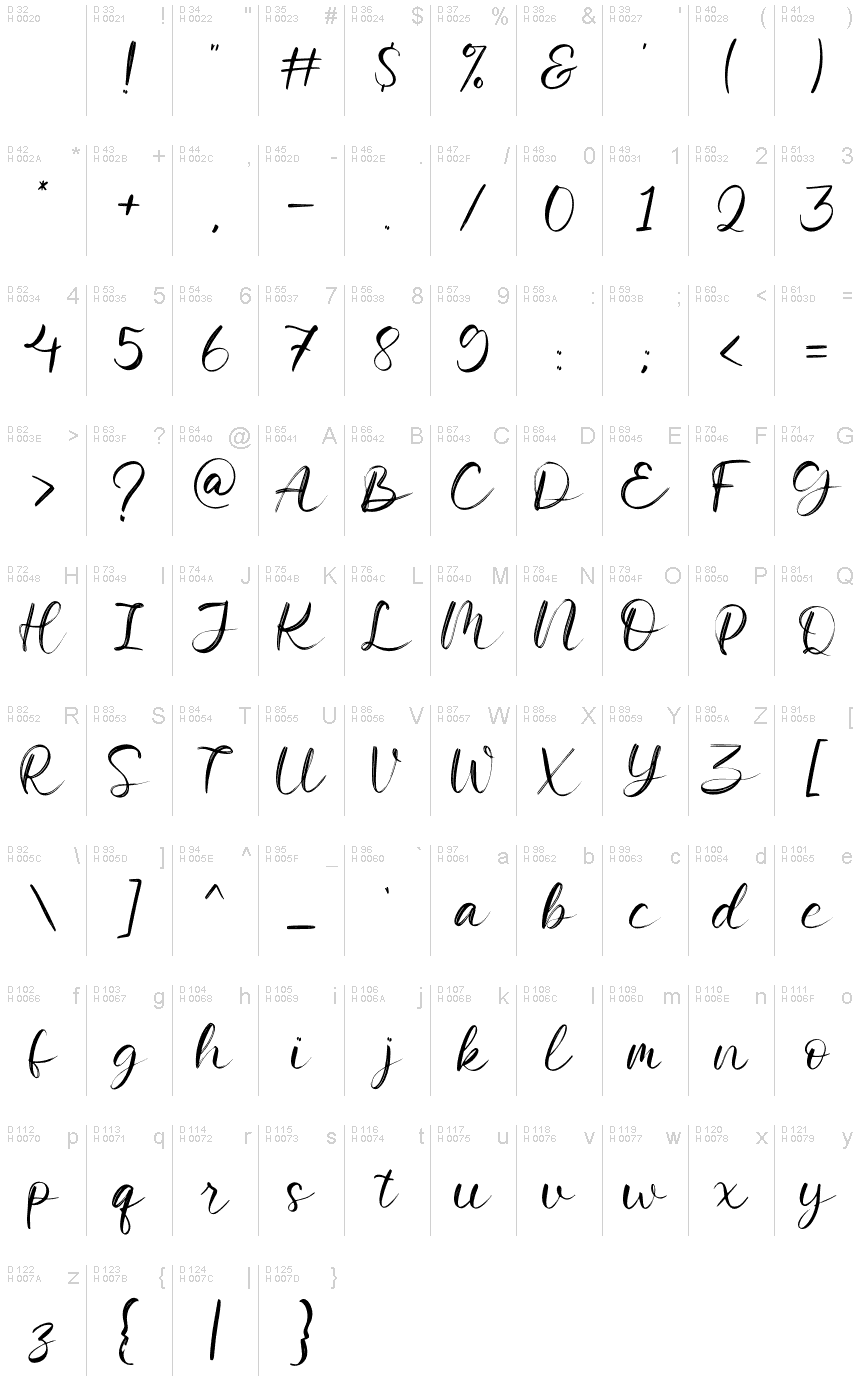
Megallion Demo
Megallion, the latest addition to the Qwrtype Foundry collection, is a stunning handwritten font that will take your design projects to new heights. With its semi-light weight, this font is perfect for creating elegant and sophisticated designs that exude class and charm. From wedding invitations to restaurant menus, Megallion adds a touch of personalization that will capture the attention of your audience. Its unique handwritten style gives it a warm and welcoming feel, making it ideal for branding initiatives or social media graphics. Don't miss out on the opportunity to elevate your designs with Megallion!